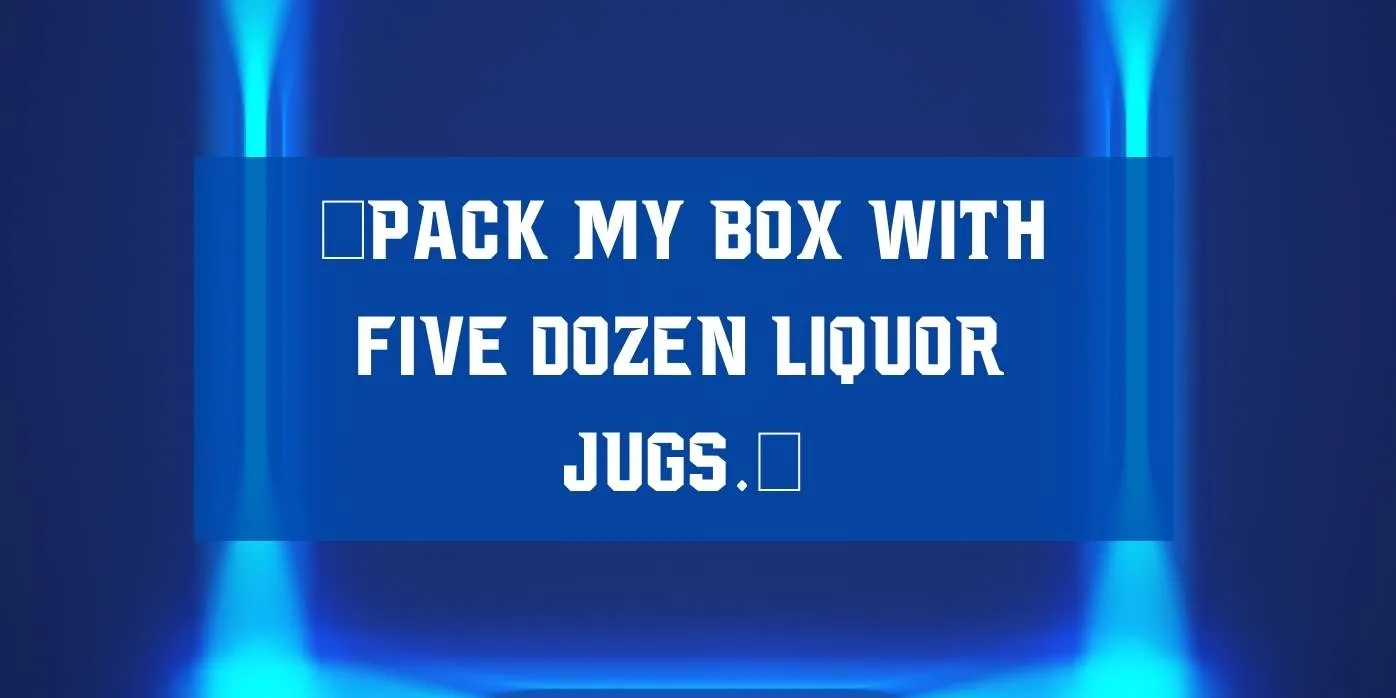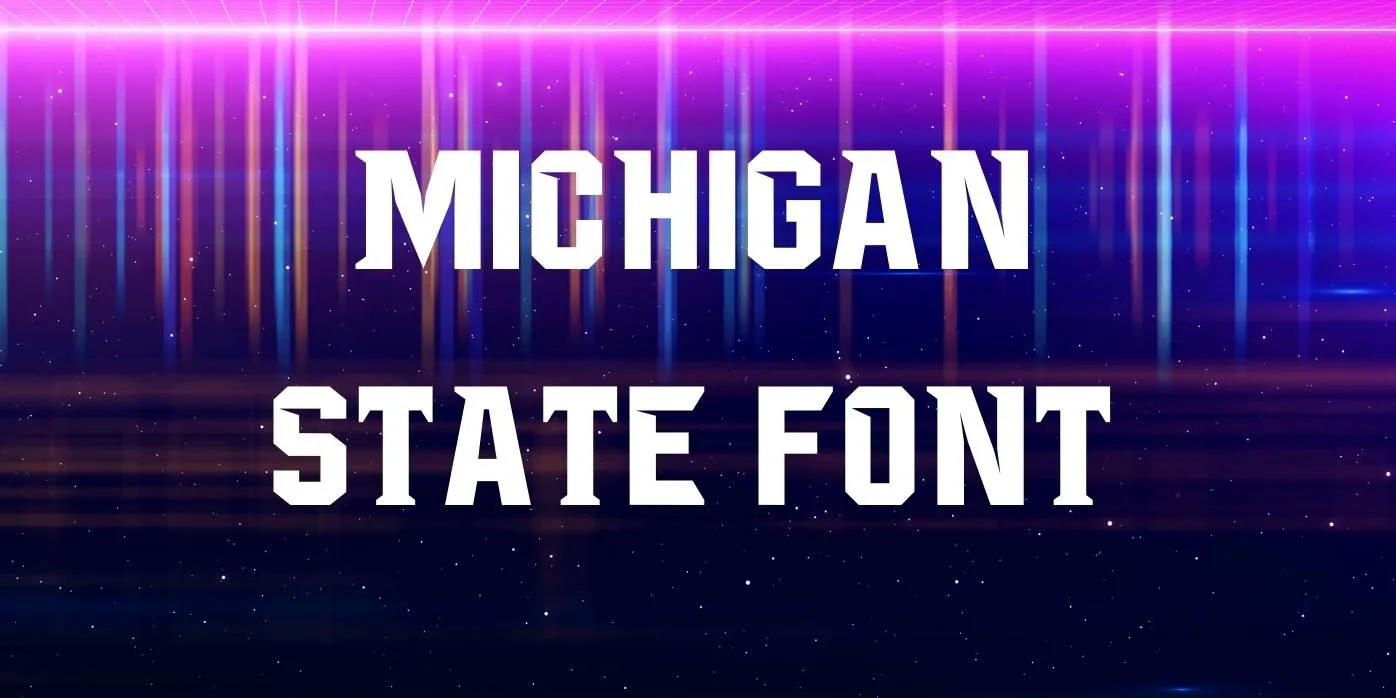
Michigan State Font
Michigan State Font is a typeface designed by typographer Matthew Carter and was commissioned in 1993 by Microsoft Corporation. This typeface belongs to the Serif typeface. It is used in many of their products, including Microsoft Office, Internet Explorer, and Windows. This cute font is also used by the state of Michigan for all official documents.
Its copy and paste function is best for different designs. This tremendous typeface is available in different unique characters nearly equal to 265. The style of this typeface is very legible and attractive, which makes it perfect for headlines, logos, and titles. This stunning font has a high x-height, making the lowercase letters more visible.
Neutra Text Font is similar to this classic typeface. It contains both uppercase and lowercase letters, numbers, symbols, and diacritics. The character width is similar to the Adobe Minion Pro font. This typeface is not suitable for small text sizes.